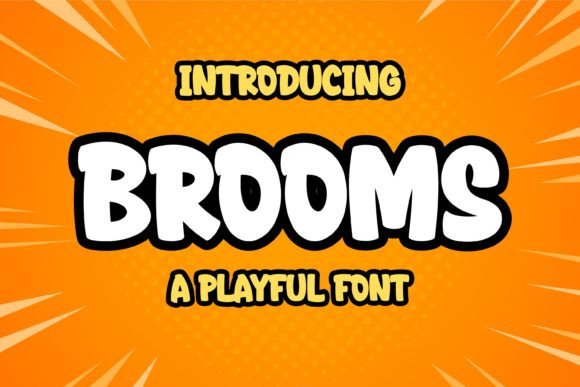
Introducing Brooms Font: The Playful Display Font That Sweeps You Off Your Feet!
With its quirky shapes and bold personality, Brooms Font instantly brought fun and energy to my designs. Whether I’m working on posters, packaging, or social media graphics, this font has become my go-to choice for adding a dash of excitement to my projects. In this article, I’ll share with you why I’m obsessed with Brooms Font, its features, and how to make the most of it in your designs.
An Honest Review of Brooms Font
What I Love About Brooms Font ✨
- ✅ Unique and quirky shapes that add a touch of playfulness to any design
- ✅ Bold and attention-grabbing personality that’s perfect for posters, packaging, and social media graphics
- ✅ Highly legible and easy to read, even at smaller font sizes
- ✅ Extensive character set with OpenType features, glyphs, and stylistic alternates
- ⚠️ Some characters may not work well at very small font sizes (less than 10pt)
- ⚠️ Limited suitability for body text or long-form content due to its bold and playful nature
The Backstory of Brooms Font
Brooms Font was designed by a team of creatives who wanted to create a font that would bring fun and energy to designs. Inspired by the whimsical world of children’s books and illustrations, Brooms Font is the result of a careful balance between playfulness and legibility. Whether you’re a designer, crafter, or creative hobbyist, Brooms Font is the perfect choice for adding a touch of excitement to your projects.
Q: What is Brooms Font best suited for?
A: Brooms Font is best suited for projects that need a dash of excitement and playfulness, such as posters, packaging, social media graphics, and kids’ products.
Q: Can I use Brooms Font for body text?
A: While Brooms Font is highly legible, it’s not recommended for body text or long-form content due to its bold and playful nature.
Q: Does Brooms Font have OpenType features?
A: Yes, Brooms Font has an extensive character set with OpenType features, glyphs, and stylistic alternates that can be accessed using compatible design software.